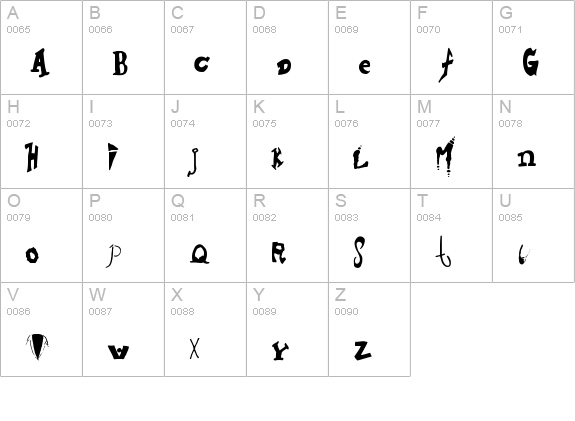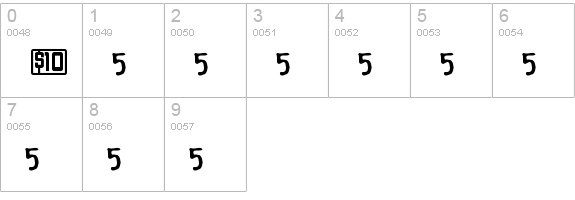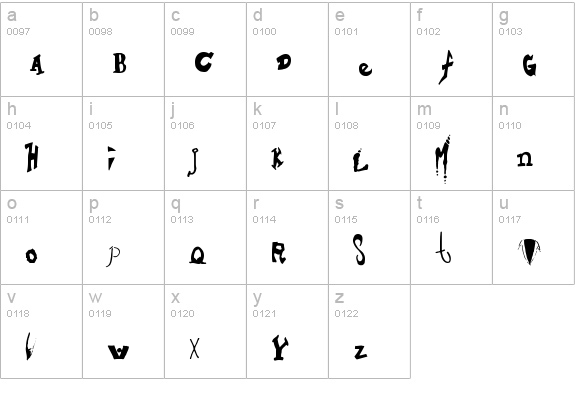
HieronymousBoschian Font Details
The HieronymousBoschian font is a whimsical and intricate typeface inspired by the fantastical and surreal works of the renowned painter Hieronymus Bosch. This font captures the essence of Bosch's bizarre and otherworldly imagery, with its twisted forms and intricate details. The HieronymousBoschian font is perfect for adding a touch of the surreal to your designs, whether for art projects, posters, or book covers. Best of all, the HieronymousBoschian font is completely free to download at FontsMarket.com. Embrace the weird and wonderful world of Hieronymus Bosch with this unique and captivating font that is sure to make your designs stand out. Let your creativity run wild with the HieronymousBoschian font and bring a touch of the surreal to your projects today.